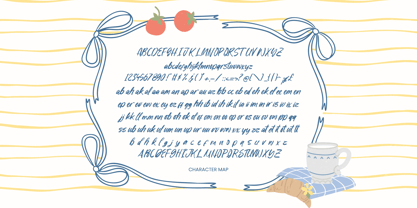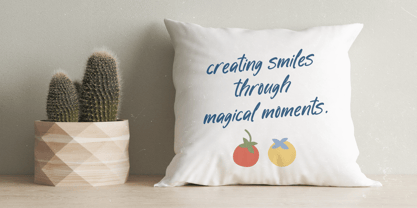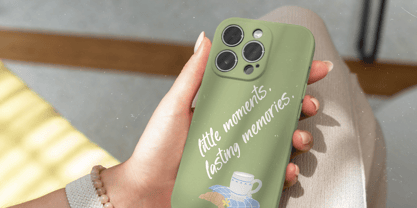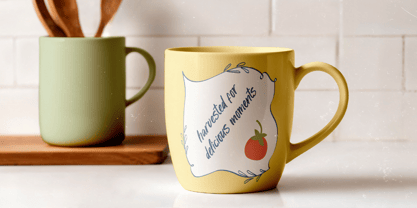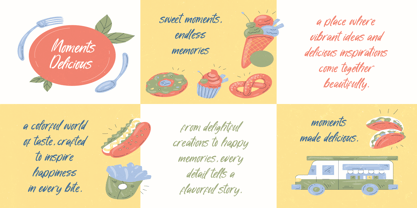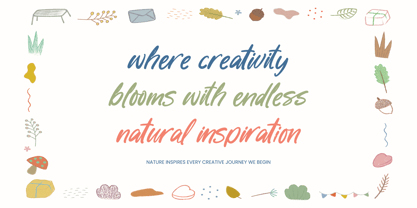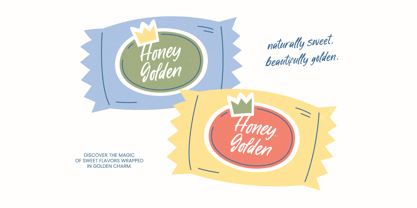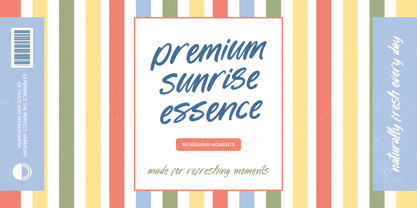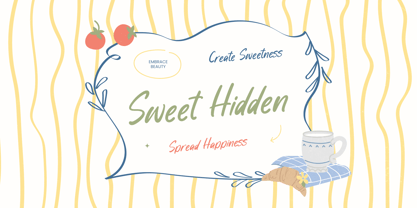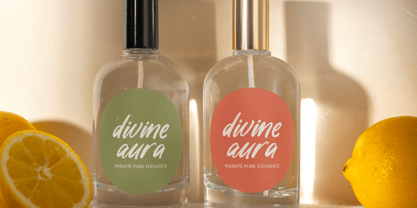
Sweet Hidden
by Letterena Studios
The Sweet Hidden Font Family was designed by Heru Utama Putra and published by Letterena Studios. Sweet Hidden contains 2 styles and family package options. More about this family
Sweet Hidden - Sticky Notes & Quotes
Elevate your designs with an authentic touch of human warmth. Sweet Hidden - Sticky Notes & Quotes is a handwritten script that captures casual elegance. With its organic flow and personal aesthetic, this font provides a hand-drawn feel that resonates with audiences. Its textured strokes make it an essential tool for injecting personality into digital and print work.
Experience the perfect blend of spontaneity and professional precision. Sweet Hidden - Sticky Notes & Quotes features 87 ligatures and 49 alternates, allowing for a customized look that mimics real handwriting. This versatile typeface excels in projects requiring a cozy vibe. By prioritizing natural letterforms, it eliminates the repetitive look of standard digital fonts.